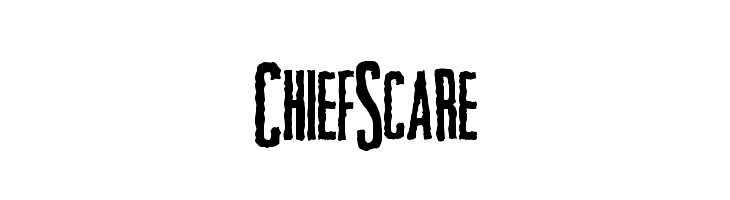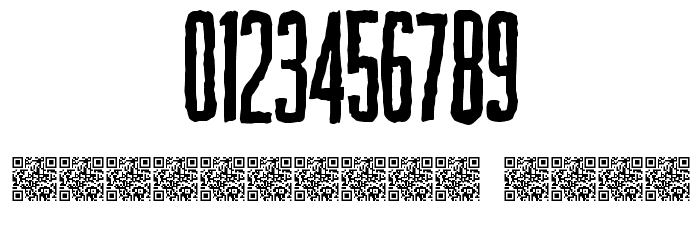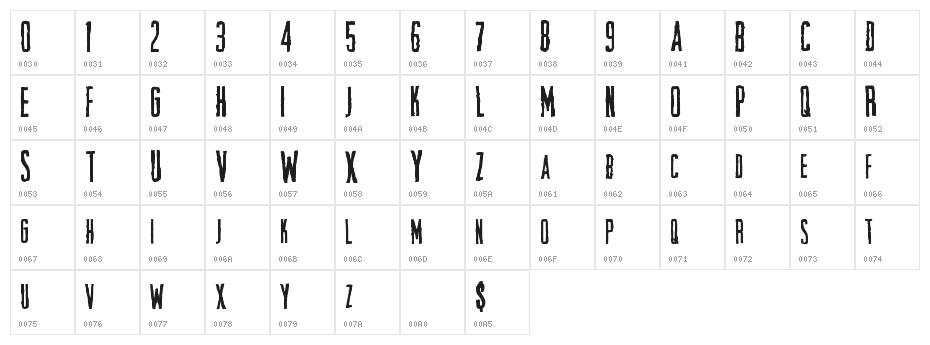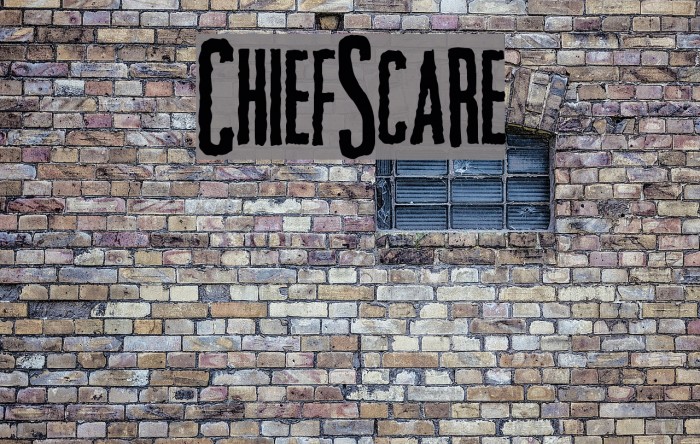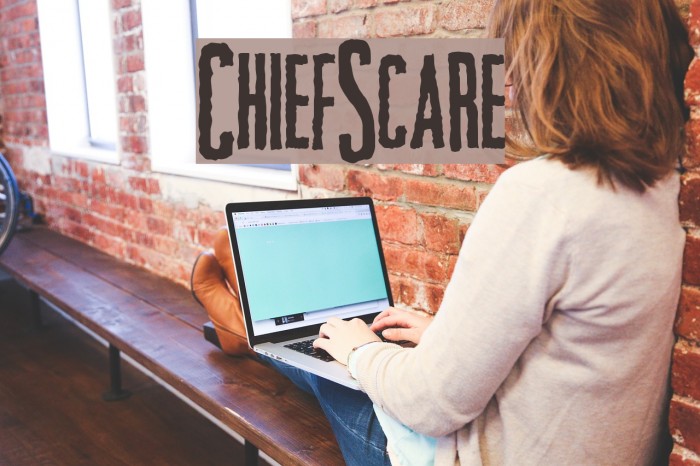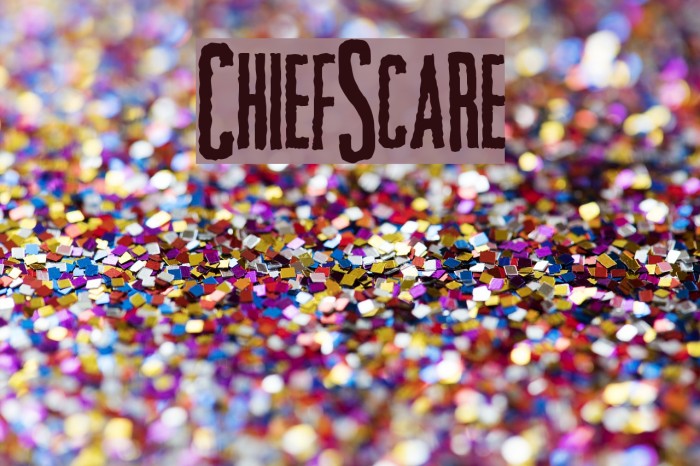
ChiefScare Font
ChiefScare Description
This font features a bold and rugged design, characterized by its irregular, distressed edges that give it a hand-drawn, eerie appearance. The uppercase letters are tall and narrow, while the lowercase letters maintain a consistent style, enhancing the font's cohesive look. The numbers follow the same aesthetic, ensuring uniformity across all characters. Its unique style is reminiscent of horror or thriller themes, making it ideal for projects that require a dramatic and impactful visual element. The font's distinct personality makes it stand out, perfect for grabbing attention in various creative applications.
| Use Case | Headlines, Posters, Logos |
| Proposed Projects | Ideal for Halloween-themed designs, horror movie posters, spooky event invitations, and any project needing a dramatic, eye-catching font. |